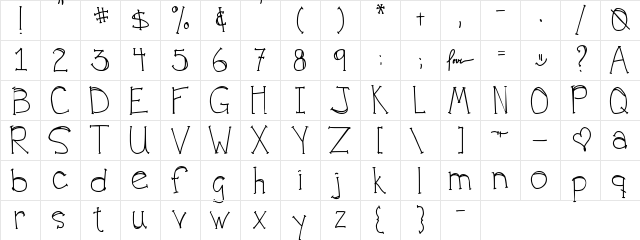
DJB FOR ANNIE Regular Font Preview
DJB FOR ANNIE Regular
DJB FOR ANNIE Regular Font Details
| Designer | Darcy Baldwin |
Design Context for DJB FOR ANNIE Typeface
DJB FOR ANNIE is a composed and adaptable typeface that performs quietly and consistently across a wide range of design contexts.